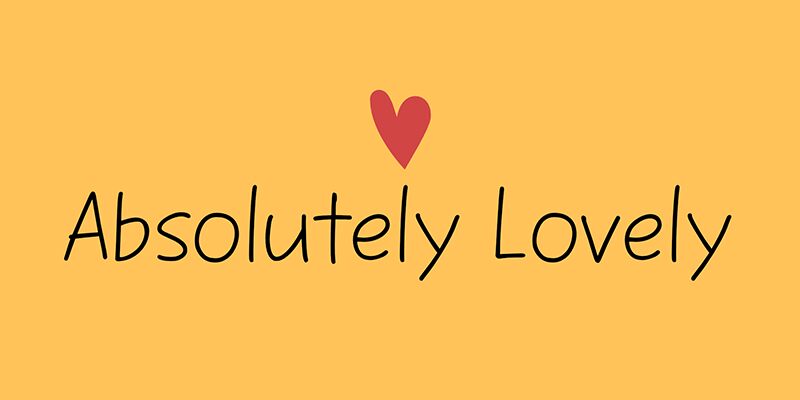
Absolutely Lovely DEMO Regular
Absolutely Lovely font designed by Hanoded embodies a light, handwritten style that conveys an unrefined yet charming tone. Its casual and approachable visual makes it suitable for creating friendly compositions previewing a hand-drawn aesthetic.
This free handwritten font fits texts used in galleries, banners, labels, greeting cards, wearable items like T-shirts, product packaging, quotes and typography art made by professionals or beginners. Areas of use can further extend to marketing materials, imprinting within books and magazines covers or titles, or even usage in graphical or digital design projects on platforms such as YouTube.